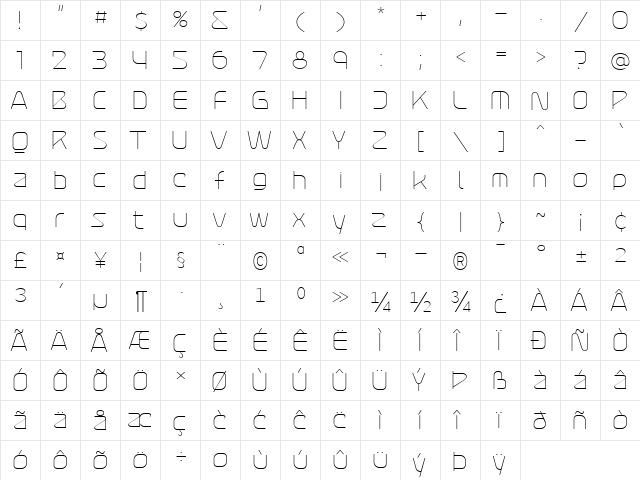
Atures 100 PERSONAL USE ONLY Regular
Design Context for Atures 100 PERSONAL USE ONLY Typeface
Atures 100 PERSONAL USE ONLY is a composed and adaptable typeface that performs quietly and consistently across a wide range of design contexts.
Pro Tip: Use Atures 100 PERSONAL USE ONLY in both headline and body roles to test its range before committing to a single application.